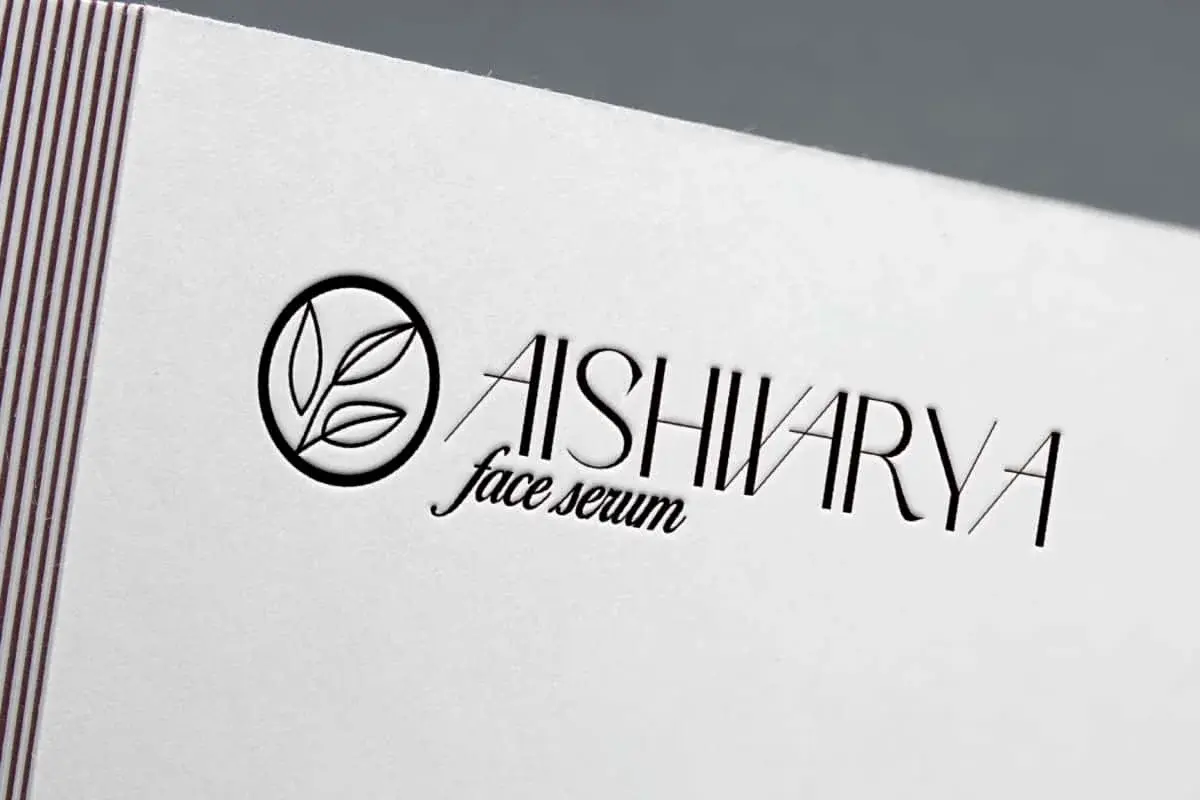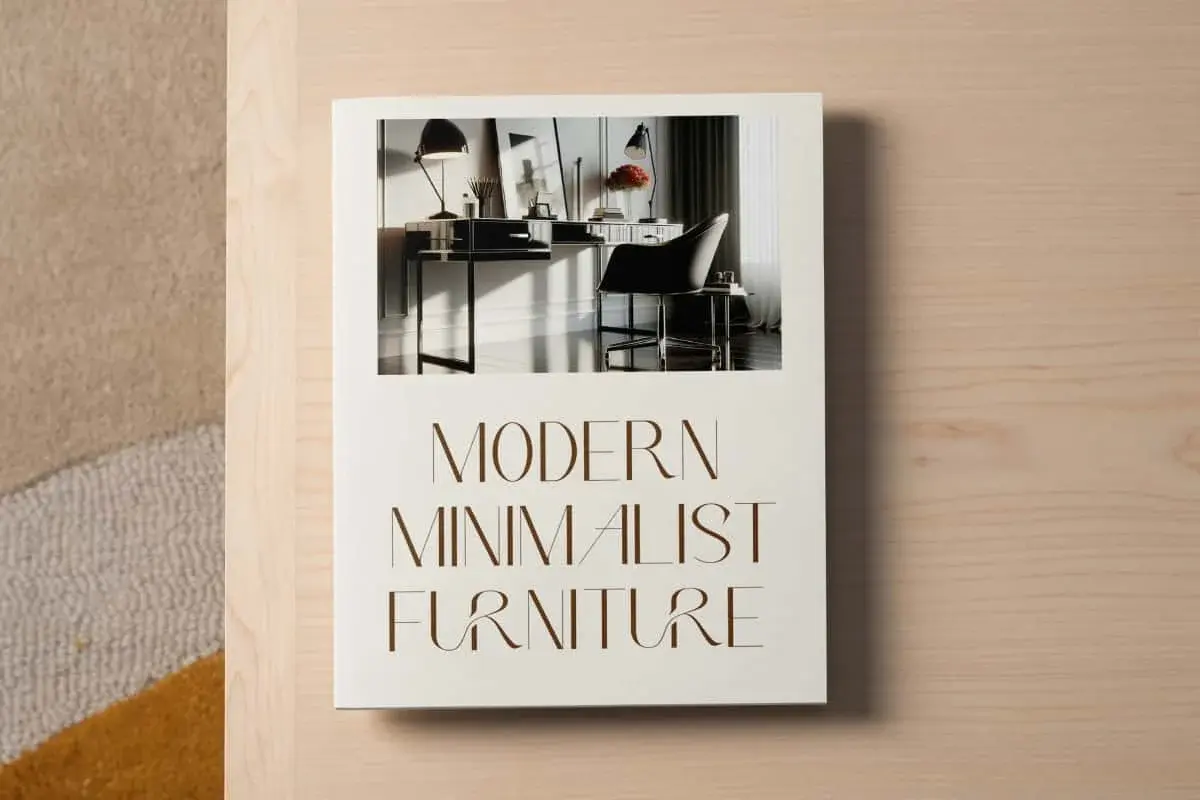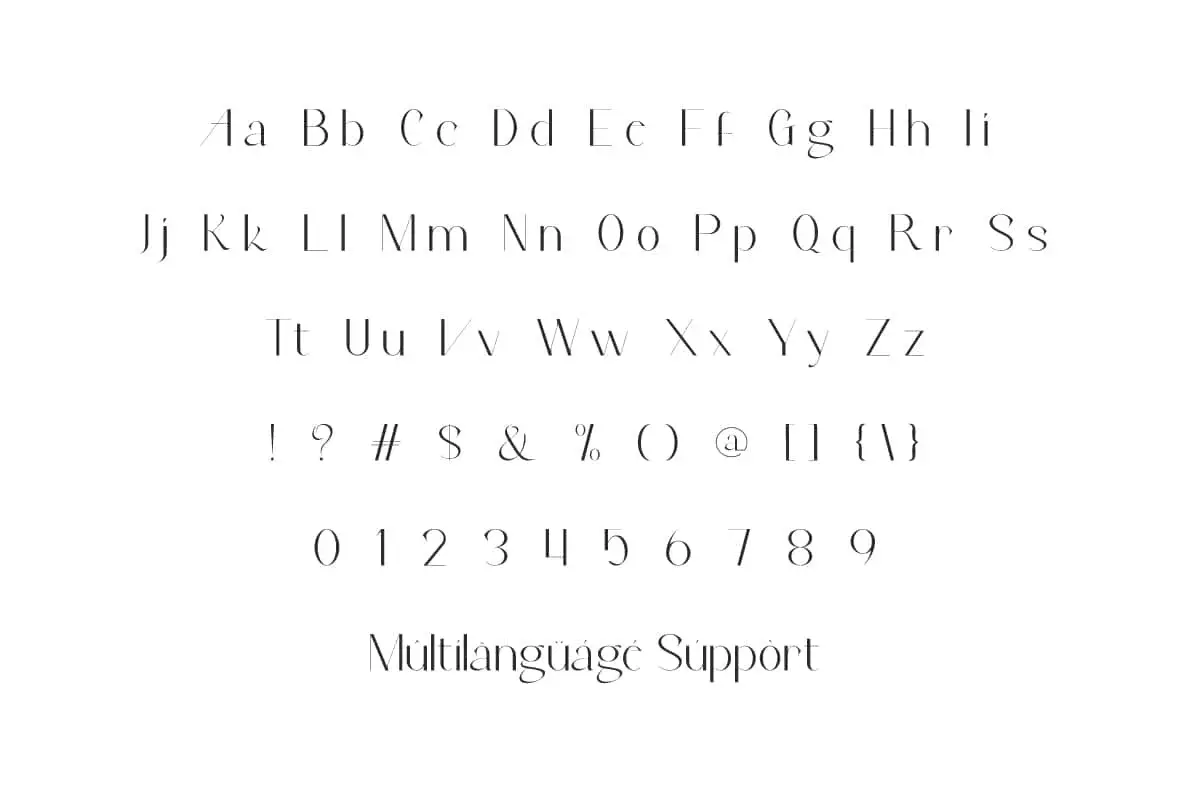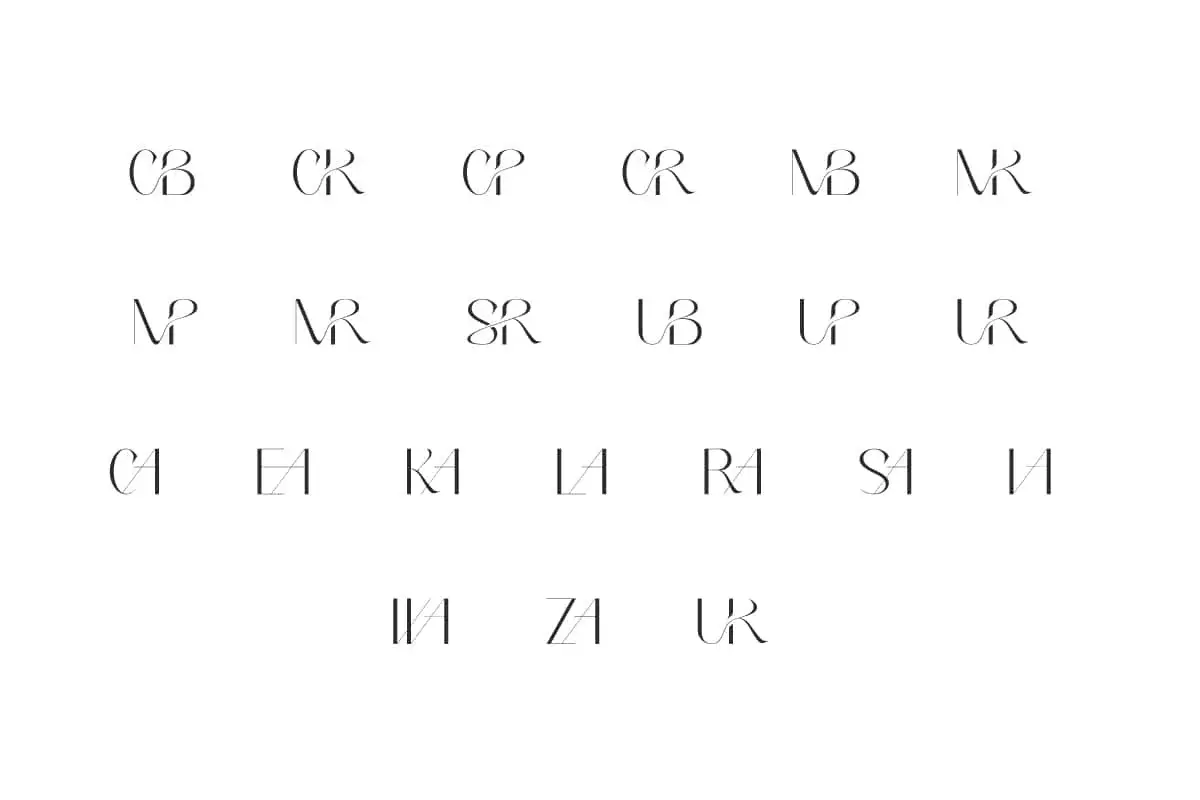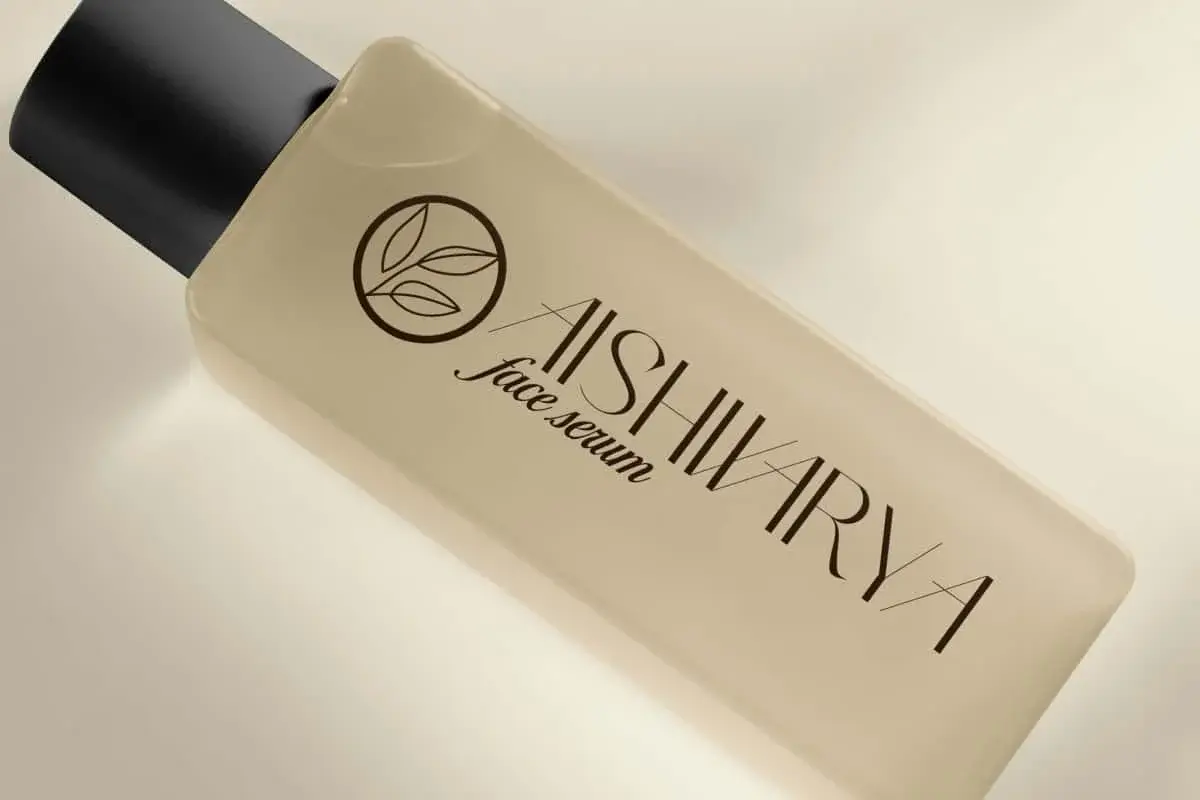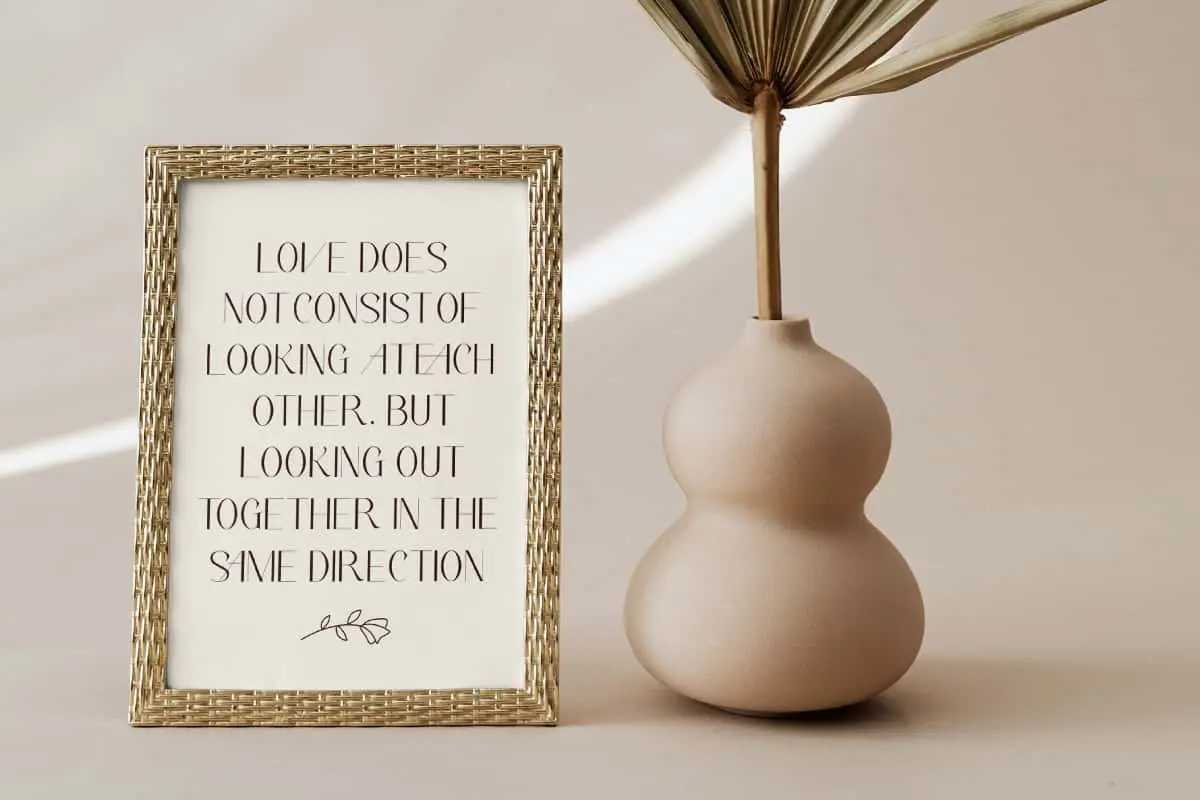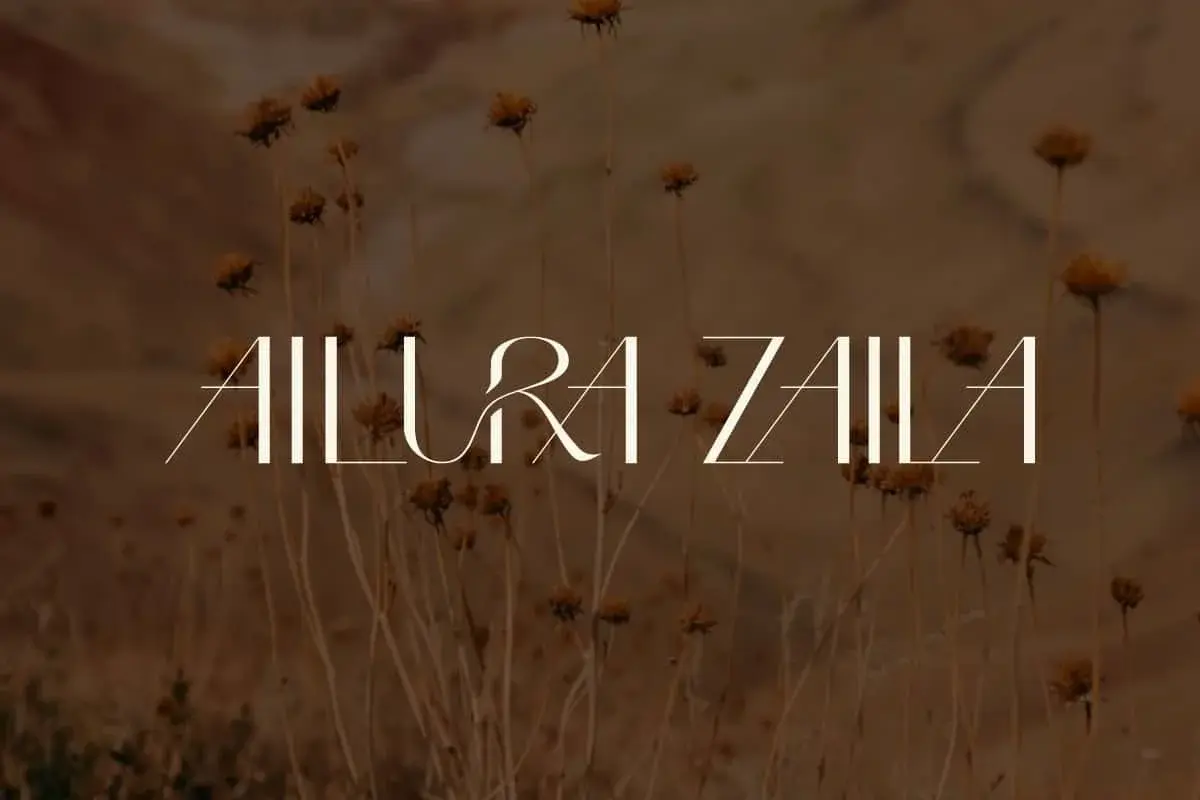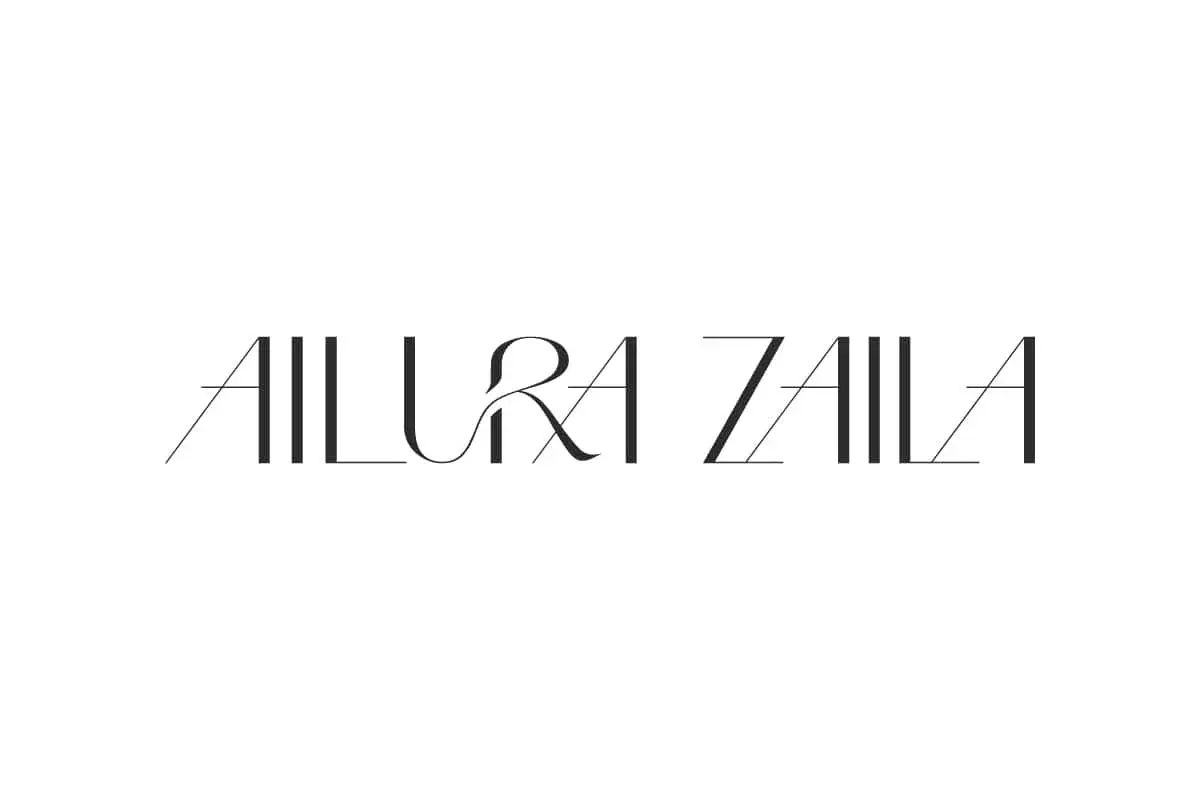
Ailura Zaila Font is an elegant font that is perfect for giving you the option to experiment in a variety of high-end designs.
Ailura Zaila Font is a modern sans serif display font with a unique combination of stylish ligature characters that are easy to adapt when used in your designs. Perfect for accessories and gift, architecture, beauty clinic, fashion, graphic design, handicraft, home furniture, hotel, interior design, photography, real estate, skincare, spa salon, and more.
Ailura Zaila Font includes full set of Uppercase and Lowercase Basic Characters, Numbers, Punctuation, Symbols and Ligature. It has a sleek and stylish typeface that brings a luxurious and feminine feel to any design, making it perfect for apps, blogs, brand logo, brochure, covers, embossed design, flyer, headers, invitation, label, mockup, product packaging, quotes, stationery, sticker, template, titles, website, etc.